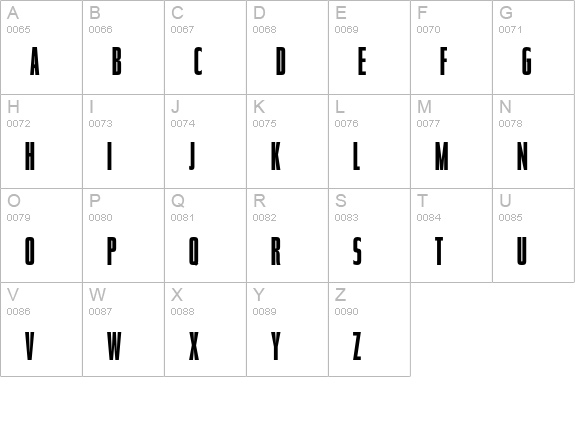
Tasse Medium Comp is a balanced, medium-weight variant in the Tasse typeface family \xE2\x80\x94 well suited to sub-headlines, navigation, and balanced editorial work.
Tasse Medium Comp font is a visually appealing and versatile typeface that carries a sense of refinement and elegance. Its medium weight strikes a perfect balance between boldness and subtlety, making it ideal for a wide range of design projects. This font exudes a timeless charm, with its clean and balanced letterforms that effortlessly blend sophistication and modernity. Its smooth curves and sharp edges create a harmonious visual rhythm, ensuring legibility while adding a touch of artistic flair. Tasse Medium Comp font is perfect for both headlines and body text, as it offers excellent readability in various sizes. Whether you are designing a logo, a book cover, a website, or any other creative endeavor, this font will lend a touch of professionalism and class to your project. But what makes Tasse Medium Comp font even more captivating is the fact that it is free to download. Yes, you read that right! This exceptional font is freely available at FontsMarket.com, a trusted source for high-quality fonts. So, you can enhance your designs and elevate your typography without spending a penny. Choose Tasse Medium Comp font to create a lasting impression with your designs. Its timeless appeal and the convenience of being freely available make it a must-have for any designer or creative enthusiast. Download it today from FontsMarket.com and unlock the potential of captivating typography.